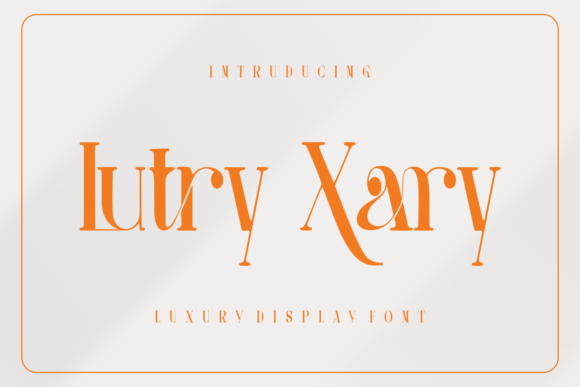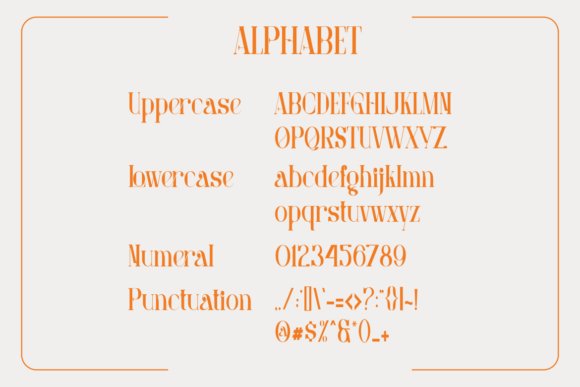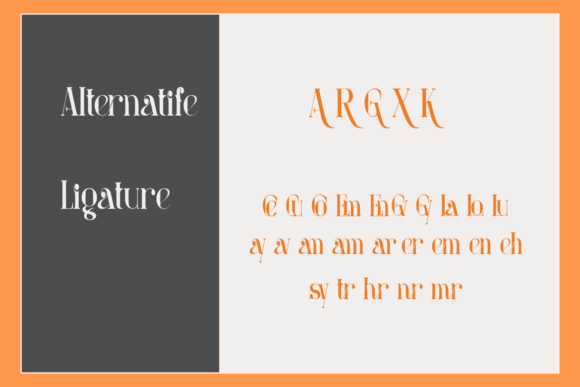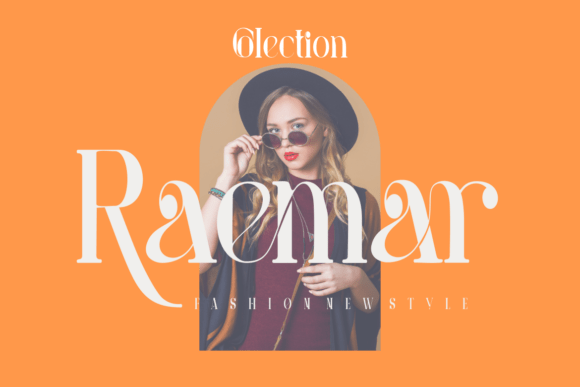
Lutry Xary Font: Elegant Typography for Upscale Branding & Logo Design
About the Lutry Xary Font
Experience the unique personality of Lutry Xary Font, a font designed for impact. Lutry Xary is a refined luxury display font with a fashionable twist. Featuring tall, slender letterforms with elegant curves and high contrast strokes, this font is ideal for upscale branding, editorial headlines, packaging, and boutique logos. Its stylish flair adds sophistication and modern charm to every design.
Lutry Xary excels in applications demanding high visual impact, such as headlines, logos, and short text blocks on packaging or posters. Its refined elegance makes it perfect for luxury brands, fashion, and high-end products. However, its slender letterforms and high contrast make it less suitable for body text or UI elements where readability is paramount; long paragraphs would strain the eye.
Consider pairing Lutry Xary with a clean sans-serif like Montserrat for a modern contrast, or a classic serif like Garamond for a more traditional feel. For a touch of playful sophistication, a delicate script font such as Allura could be used sparingly as an accent.
The overall personality of Lutry Xary is sophisticated and modern, conveying a sense of refined luxury and exclusive appeal. It projects confidence and a sense of timeless style, making it a strong choice for brands aiming for an upscale image.
Lutry Xary Font Usage Examples
Lutry Xary Font Example